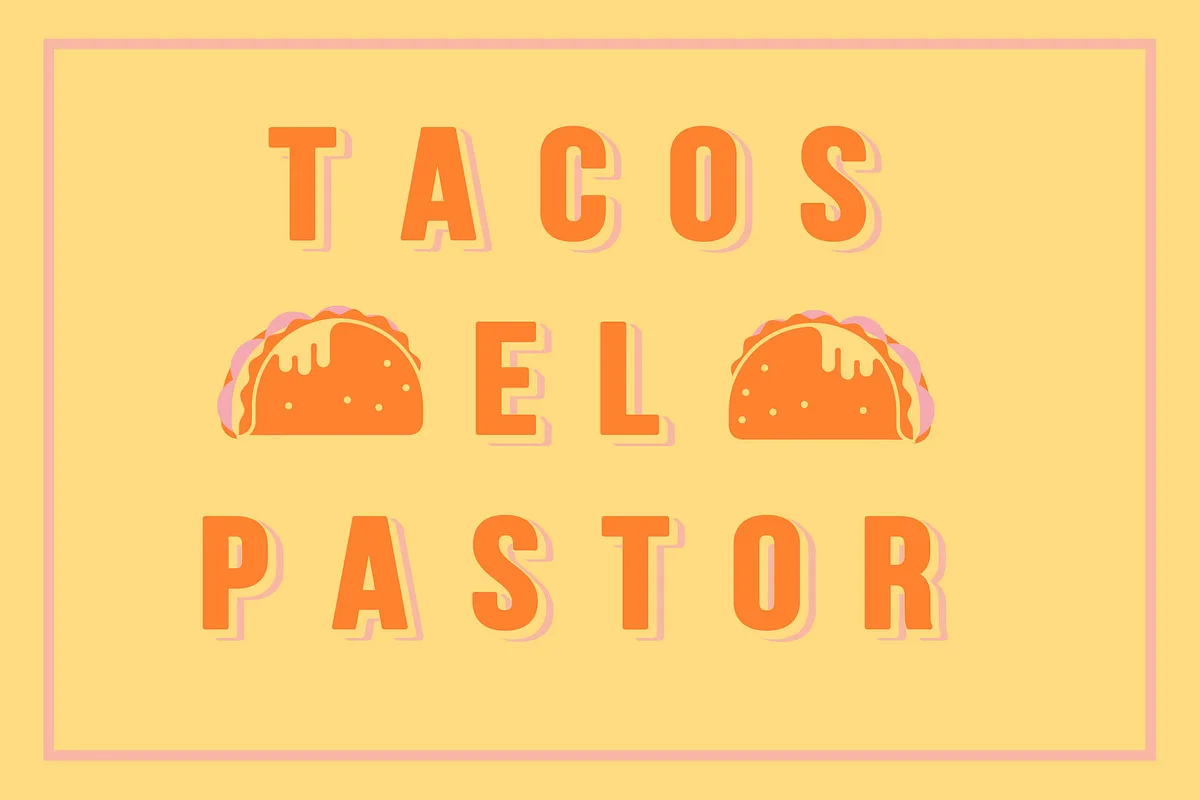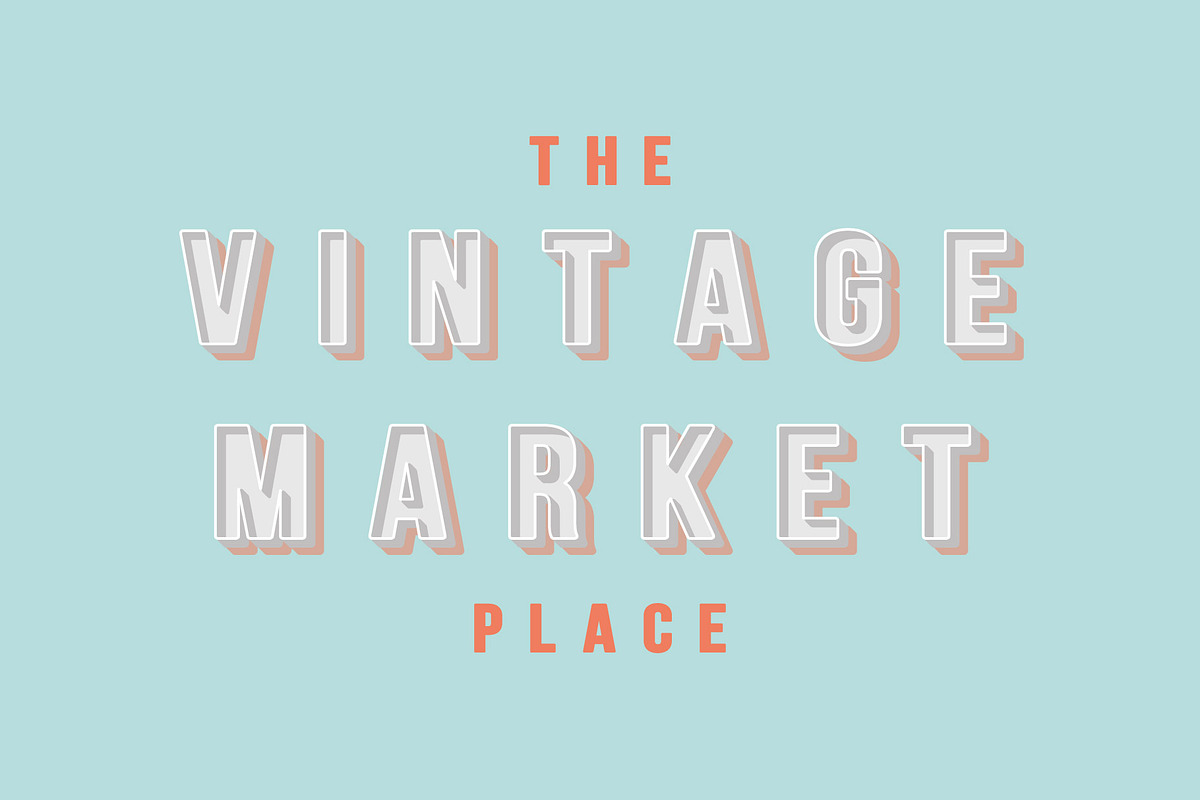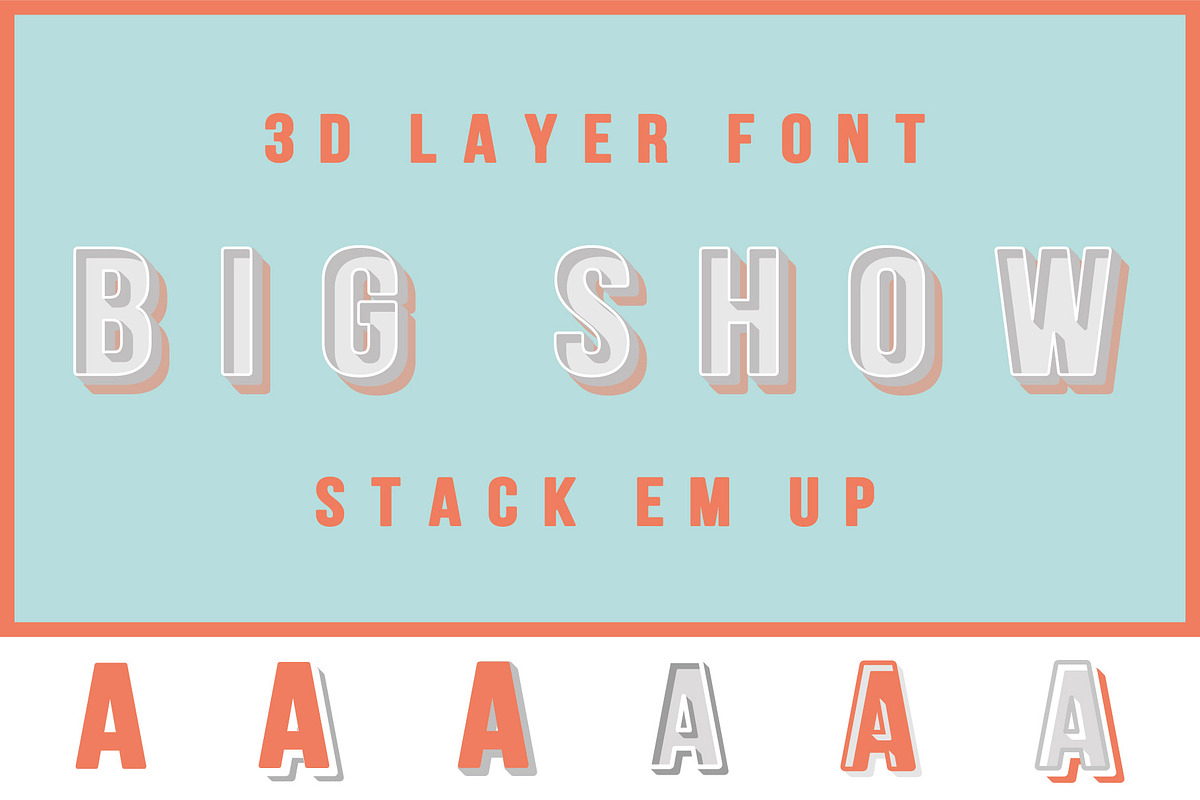
Big Show is a simple 2-weight system that can be layered for multiple effects. It is bold with soft rounded corners. Vintage signwriter x fun carnival vibe depending on the colours you use.